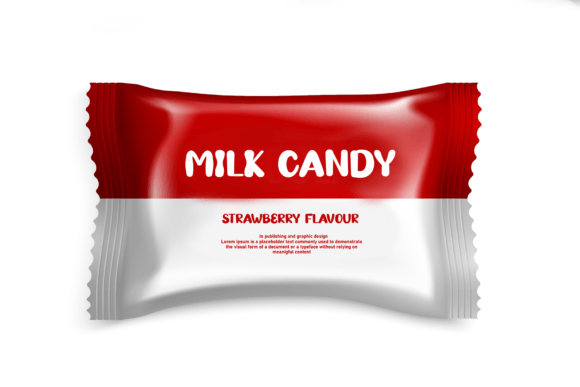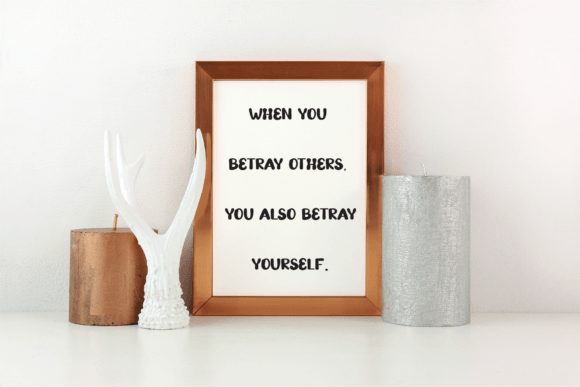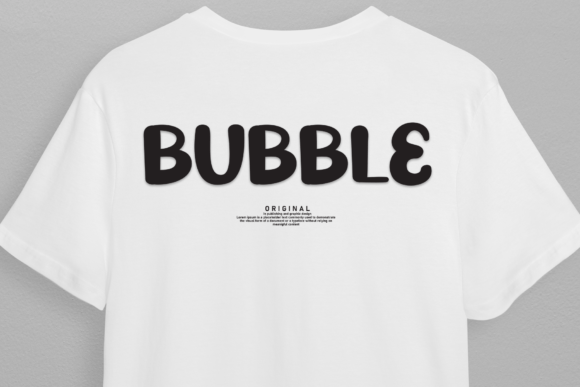
Baby Boy Font
Baby Boy is a sweet and friendly handwritten font. Cute yet versatile, this font is ideal for writing wedding invitations, cards, or any other design that might need a lovely touch!